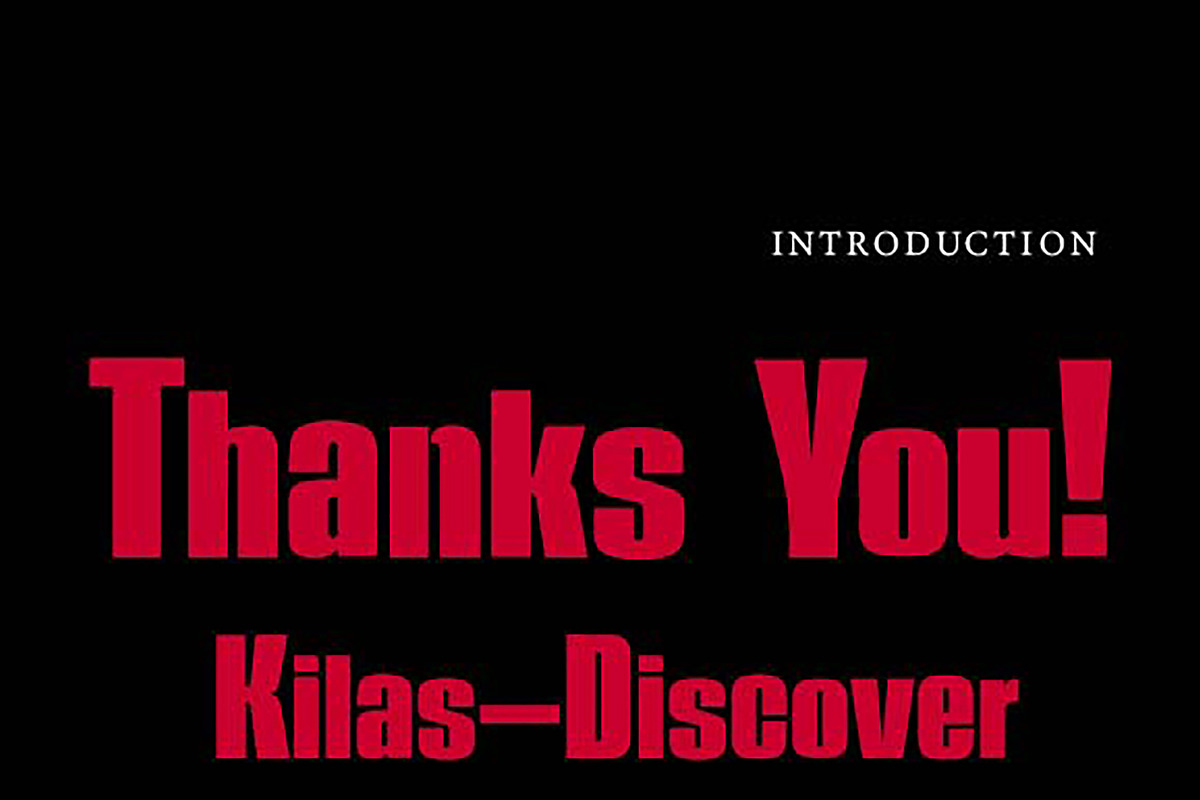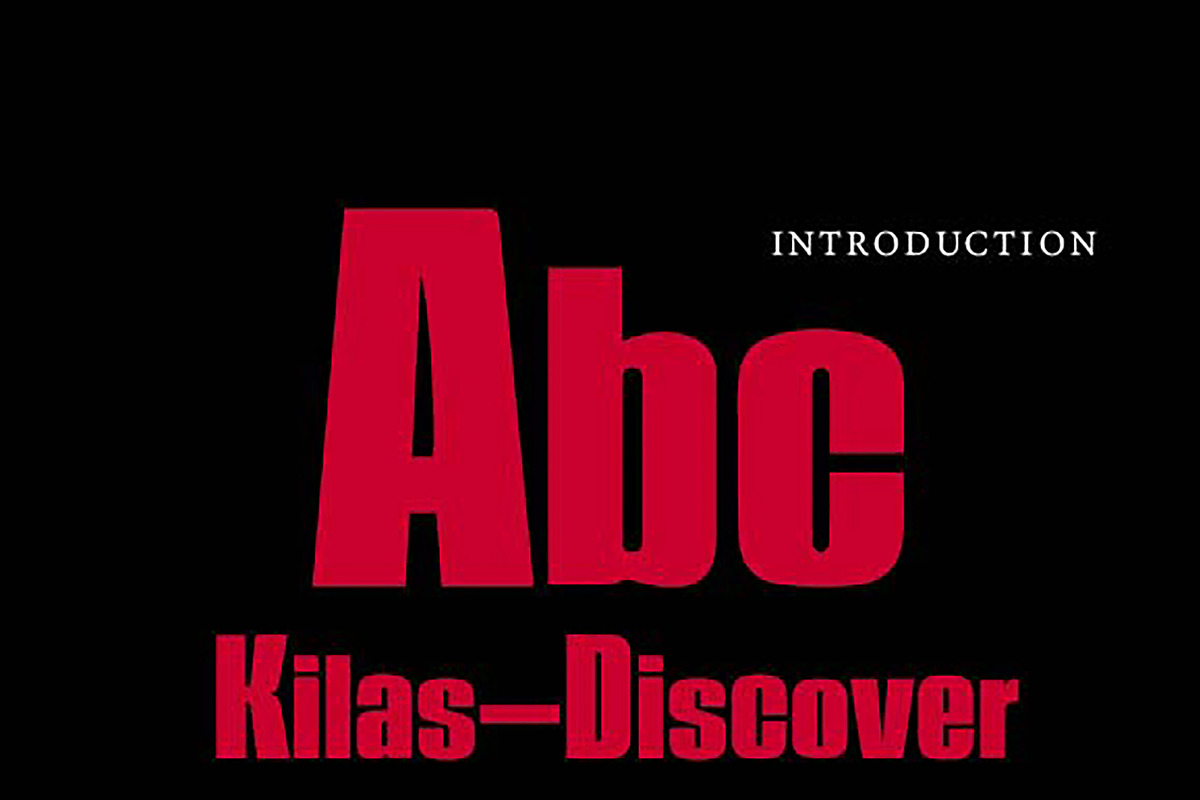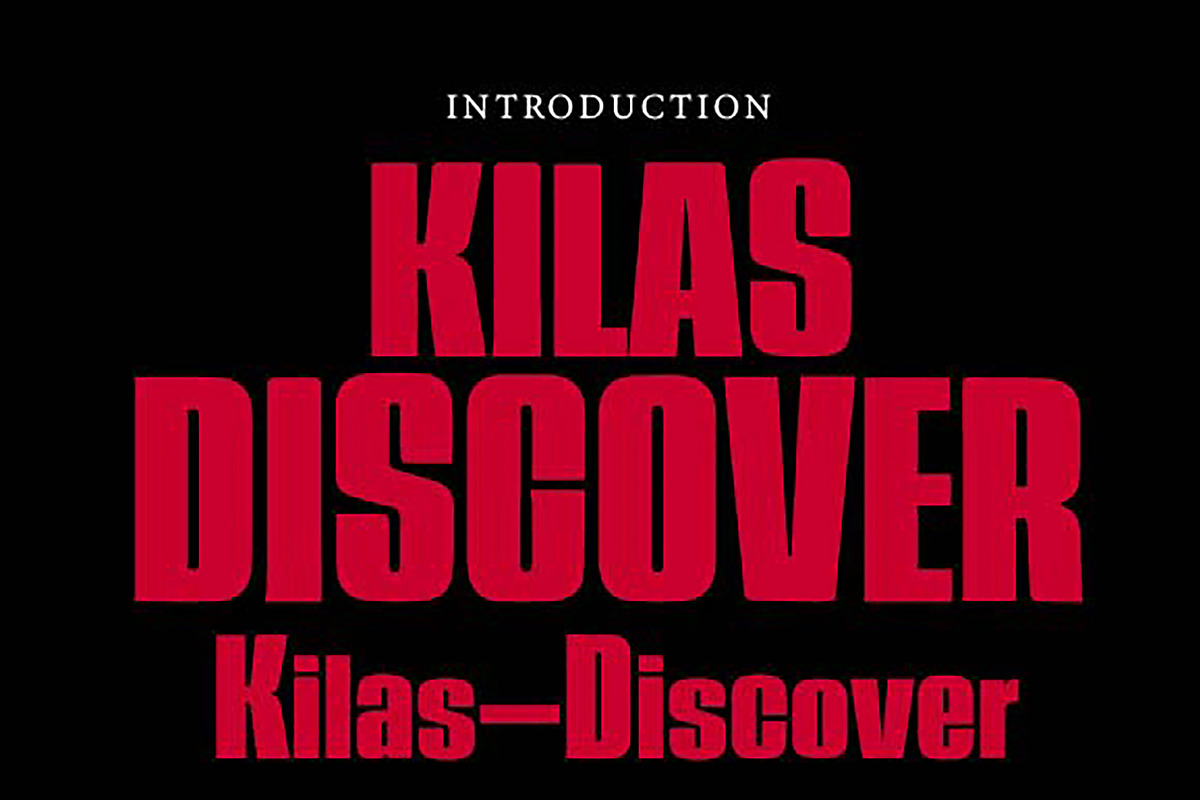
Kilas-Discover
Kilas-Discover – Tall Bold Condensed Display Font
Kilas-Discover is a tall bold condensed display font with a strong, modern, and commanding personality. Designed with narrow proportions, solid strokes, and a clean vertical structure, this typeface creates a powerful visual impact while maintaining excellent readability.
Its bold condensed style makes Kilas-Discover perfect for posters, branding, logos, headlines, packaging, editorial layouts, sports graphics, and promotional materials. The tall and compact letterforms help maximize space while delivering a sharp, confident, and professional look.
This font is ideal for designers who want a typeface that feels bold, structured, and contemporary. Whether you're creating a striking brand identity, impactful advertising, or attention-grabbing typography for print and digital projects, Kilas-Discover adds strength and precision to every composition.
Why You’ll Love It:
Tall and bold condensed style Strong, clean, and modern appearance Space-saving yet highly impactful letterforms Great for headlines, branding, and posters Perfect for both print and digital use
Short Version:
Kilas-Discover is a tall bold condensed display font with a modern, clean, and powerful look. Perfect for branding, logos, posters, packaging, editorial layouts, and headlines, it brings strong visual impact and professional character to any design.